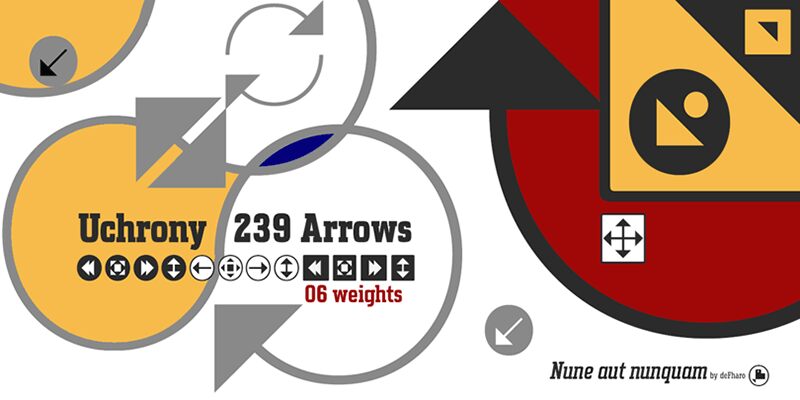
Uchrony is a condensed proportion slab serif typeface designed by Fernando Haro of deFharo. The font family is made up of 3 styles, Roman, Small Caps & Italics, with 6 weights each (Extra Light, Light, Regular, Medium, Bold and Extra Bold).
Uchrony Arrows is an extra style that complements the rest of the Uchrony font styles, to create attractive designs or signage.
Uchrony is an exclusive Serif typeface family, with condensed proportion. The font family consists of 6 weights (Extra Light, Light, Regular, Medium, Bold & Extra Bold) more the italic versions, with their own personality.